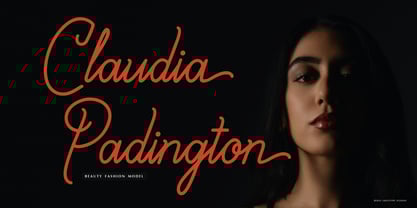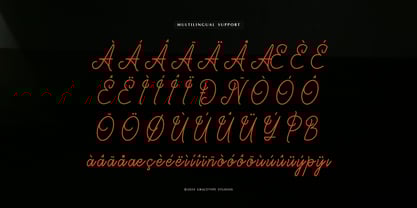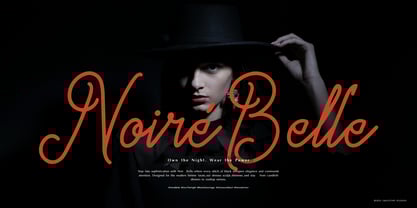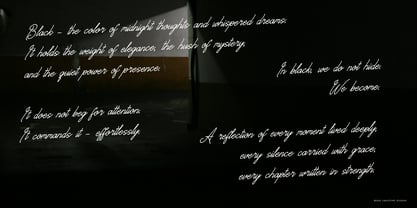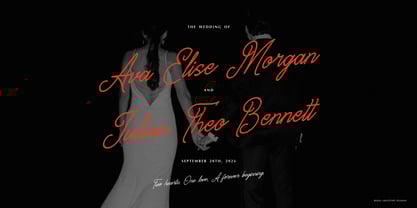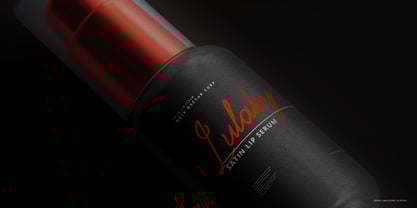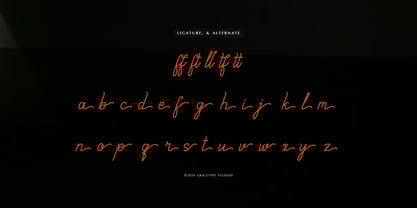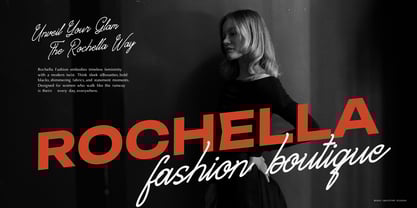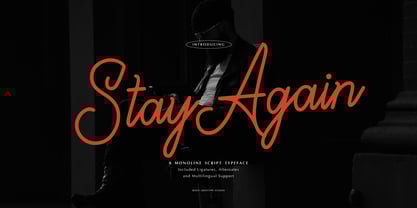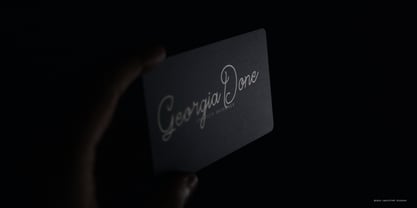
Stay Again
by Tini Fitriani
Stay Again | Monoline Script Font, from Denustudios, suitable for any projects such as: logos, branding projects, homeware designs, product packaging, mugs, quotes, posters, shopping bags, t-shirts, book covers, name card, invitation cards, greeting cards, label, photography, watermark, special events, and all your other lovely projects that need Monoline Script Font a taste.
• Regular and Italic
• Alternate and Ligature